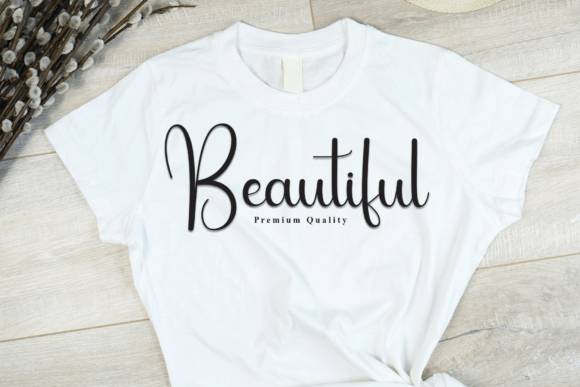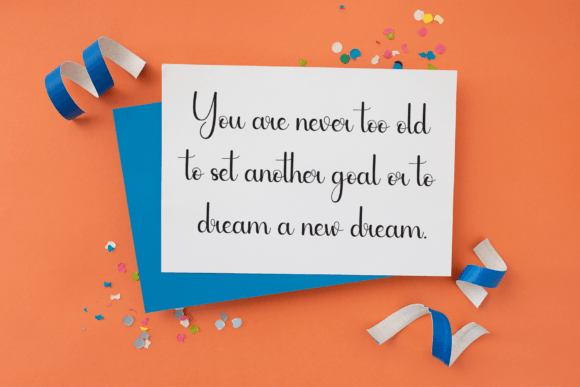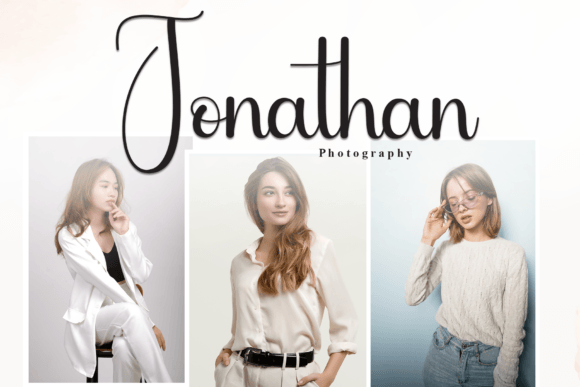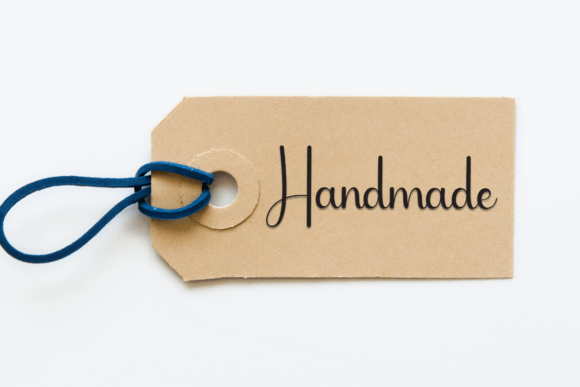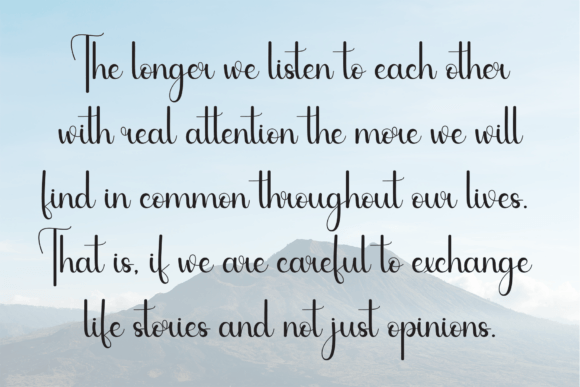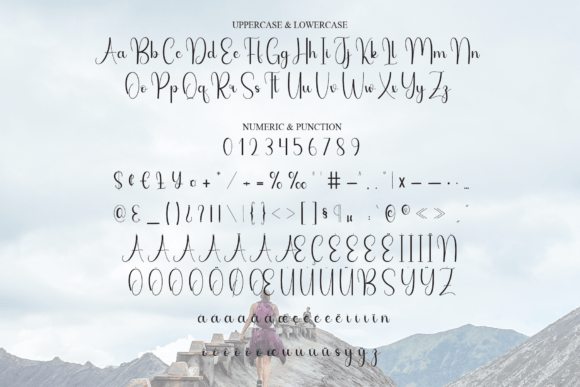
Introducing Adventure Font: Elevate Your Designs with Elegance and Charm
Are you a designer, crafty enthusiast, or simply someone who appreciates beautiful typography? Look no further than Adventure Font, a stunning handwritten script font that embodies sophistication and refinement. With its fluid, graceful strokes, Adventure Font is the perfect addition to your design arsenal, allowing you to create breathtaking branding, invitations, stationery, and more.
The Essence of Adventure Font
Adventure Font is a masterfully crafted handwritten script font that exudes elegance and charm. Its smooth curves and natural flow create a timeless, refined look that instantly elevates any design. Whether you’re working on a luxury brand, a wedding invitation, or a personal project, Adventure Font adds a personal and sophisticated touch that sets it apart from more generic fonts.
Key Features of Adventure Font
- Fluid, Graceful Strokes: Adventure Font boasts fluid, sweeping strokes that give it a sense of movement and energy.
- Elegant and Refined: The font’s smooth curves and natural flow create a sophisticated, high-end look that’s perfect for luxury brands and designs.
- Handwritten with Love: Adventure Font is a genuine handwritten script font, imbuing your designs with a personal touch that’s hard to replicate with generic fonts.
- Versatile: From branding and invitations to stationery and more, Adventure Font is an incredibly versatile font that adapts to any design need.
Adventure Font is an ideal choice for designers and crafters looking to add a touch of elegance and sophistication to their work. Whether you’re creating:
- Branding Materials: Use Adventure Font to create stunning logos, business cards, and letterheads that exude refinement and luxury.
- Wedding Invitations: Add a touch of romance and sophistication to your wedding invitations, save-the-dates, and thank-you cards.
- Stationery: Create beautiful notebooks, journals, and stationery sets that showcase your attention to detail and love of beautiful typography.
- DIY Projects: Use Adventure Font to add a personal touch to your craft projects, such as handmade cards, scrapbooking, and more.
Why Choose Adventure Font?
With so many fonts available, why choose Adventure Font? Here are just a few reasons:
- Unique and Distinctive: Adventure Font stands out from more generic fonts, giving your designs a unique and distinctive look.
- High-Quality: Adventure Font is a high-quality font that’s been carefully crafted to ensure it looks amazing in any design.
- Easy to Use: Adventure Font is incredibly easy to use, even for those with limited design experience.
- Timeless: The font’s classic, elegant look ensures it will remain timeless and relevant for years to come.